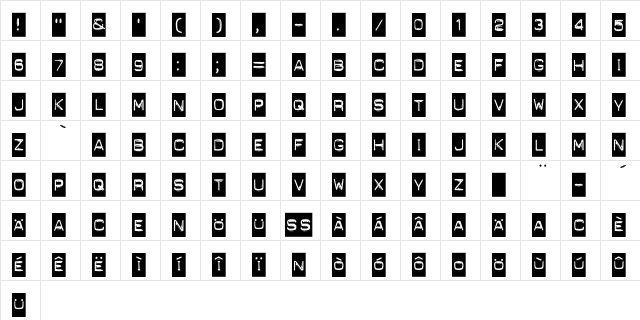
Dynamoe Medium
| Foundry | Copr. Just van Rossum, Letterror |
Design Context for Dynamoe Typeface
Dynamoe takes a measured approach to typography — its balanced proportions and neutral character make it a reliable workhorse for both digital and print work.